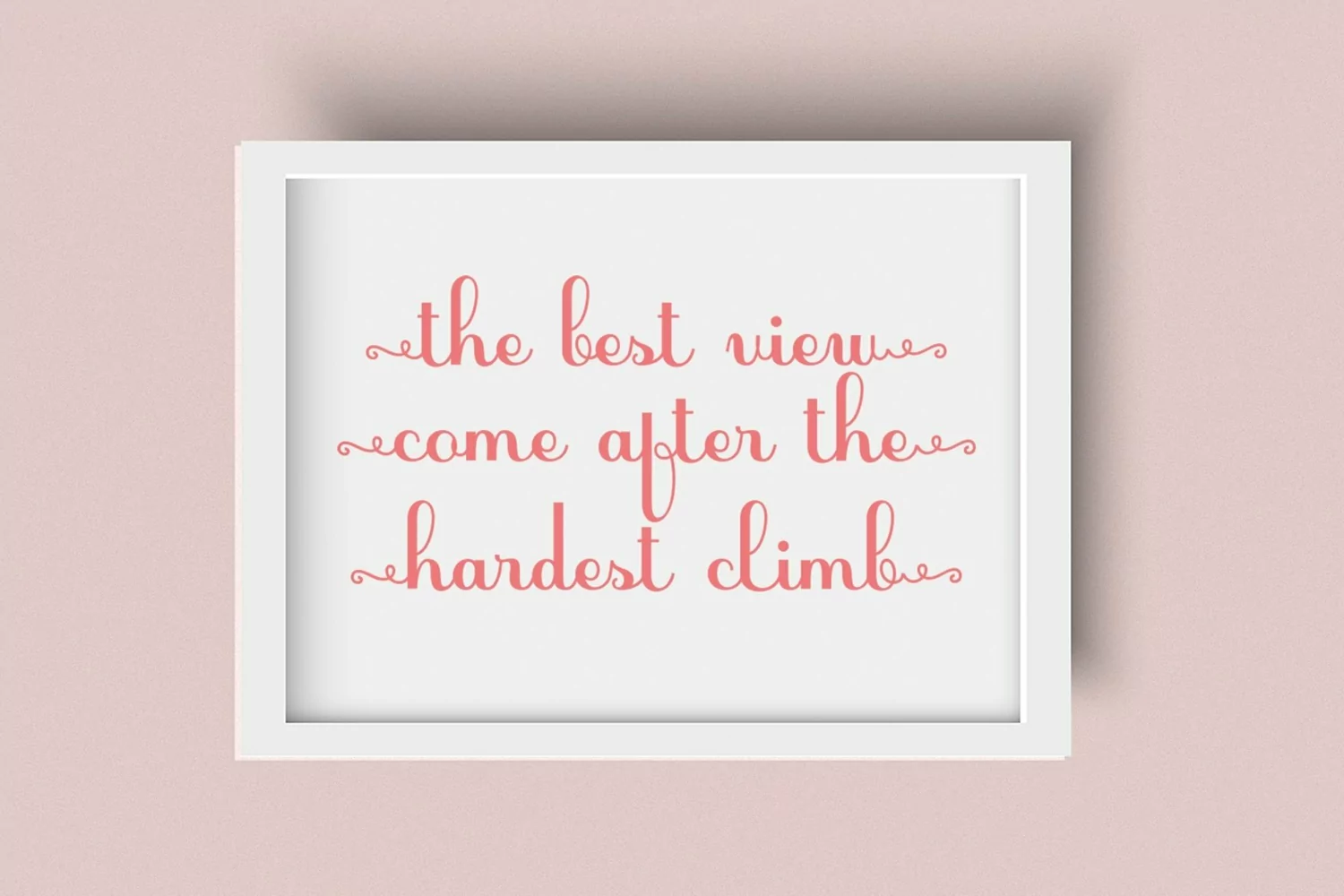
Zandona is a modern script font. Perfect for display, poster, quotes, film, craft needs, book cover, business card, packaging, merchandise, branding, logo, logotype, header, title, and many more.